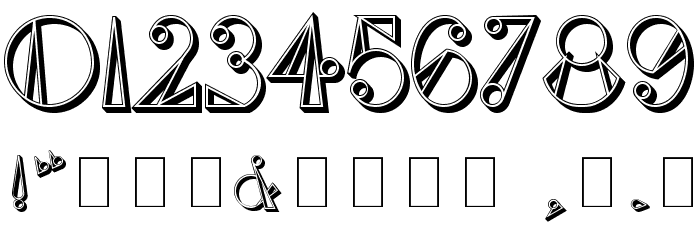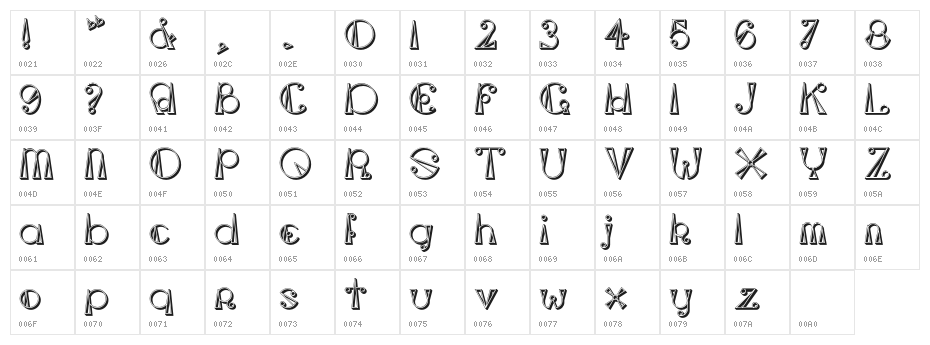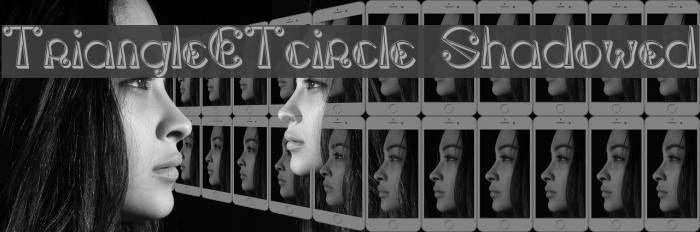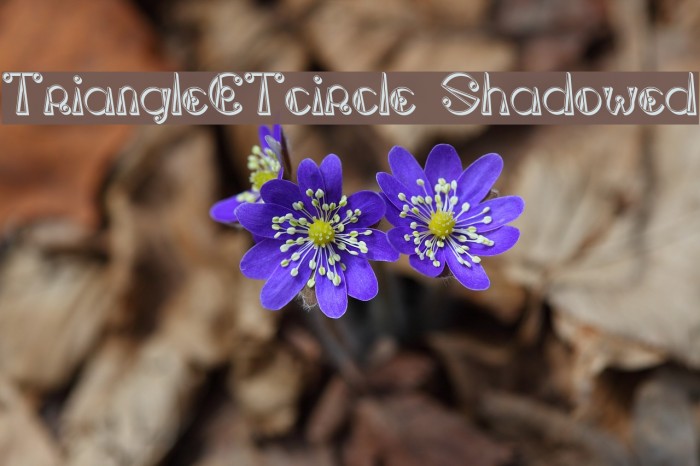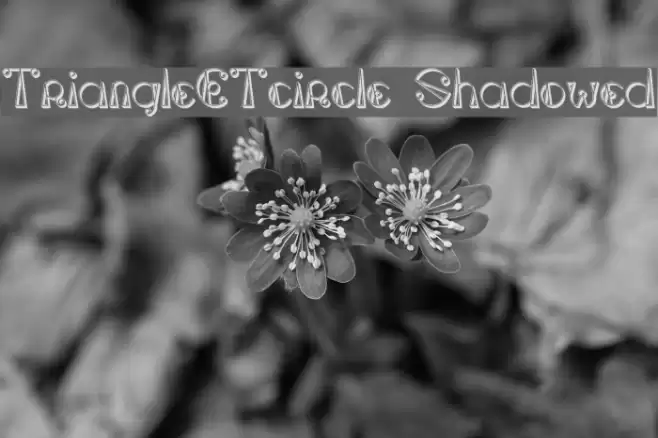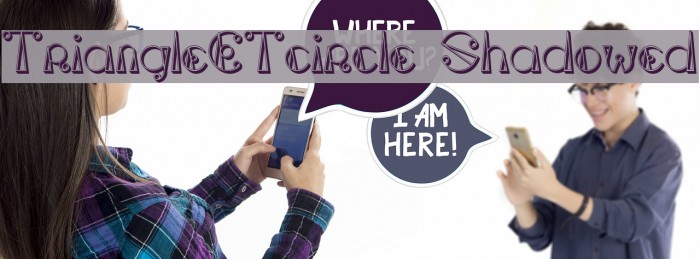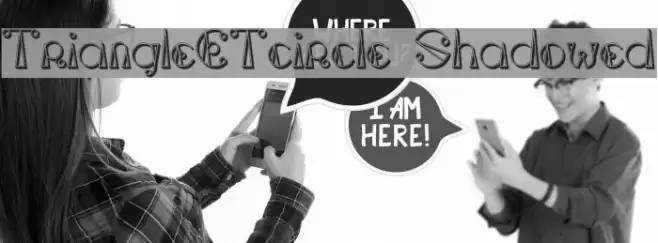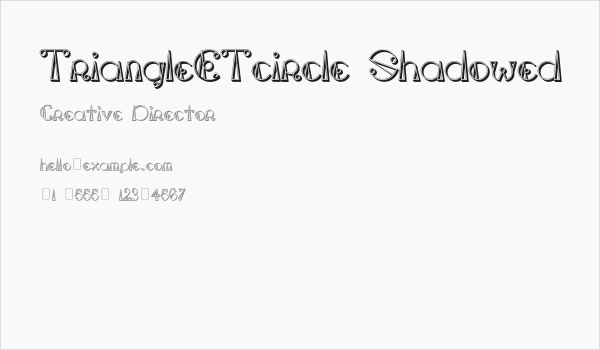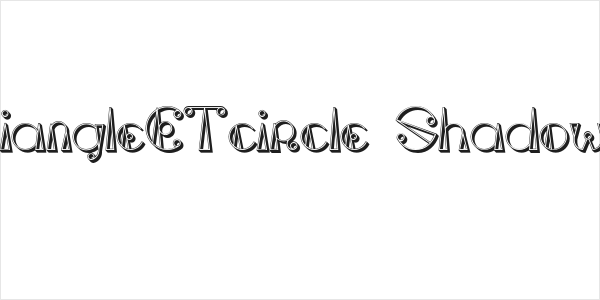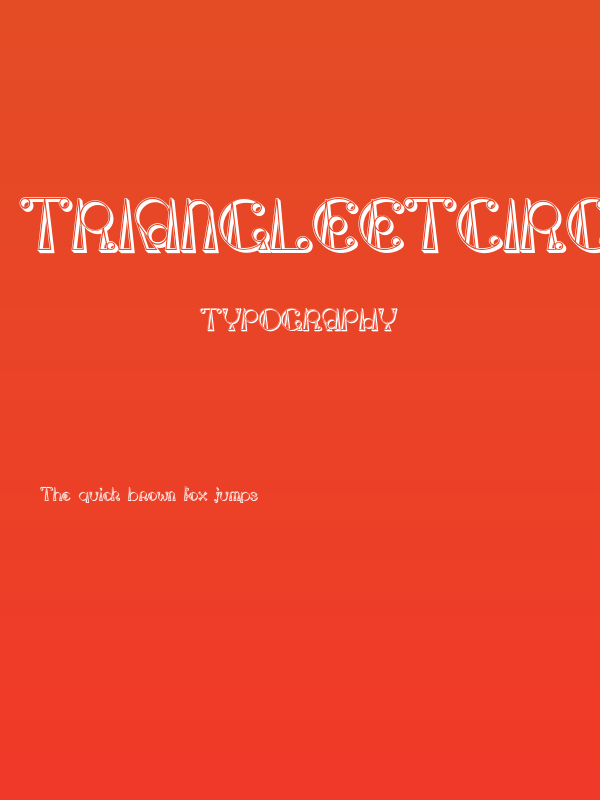
TriangleETcircle Shadowed Font
TriangleETcircle Shadowed Description
This font features a unique and artistic design, blending geometric shapes with a shadowed effect. Each character incorporates elements of triangles and circles, creating a dynamic and visually striking appearance. The letters have a bold outline with inner detailing that adds depth and dimension. The overall style is decorative and modern, making it suitable for creative and eye-catching designs. The numbers and special characters maintain the same geometric theme, ensuring consistency across all elements.
| Proposed Projects | Ideal for posters, logos, and branding projects that require a bold and artistic touch. |